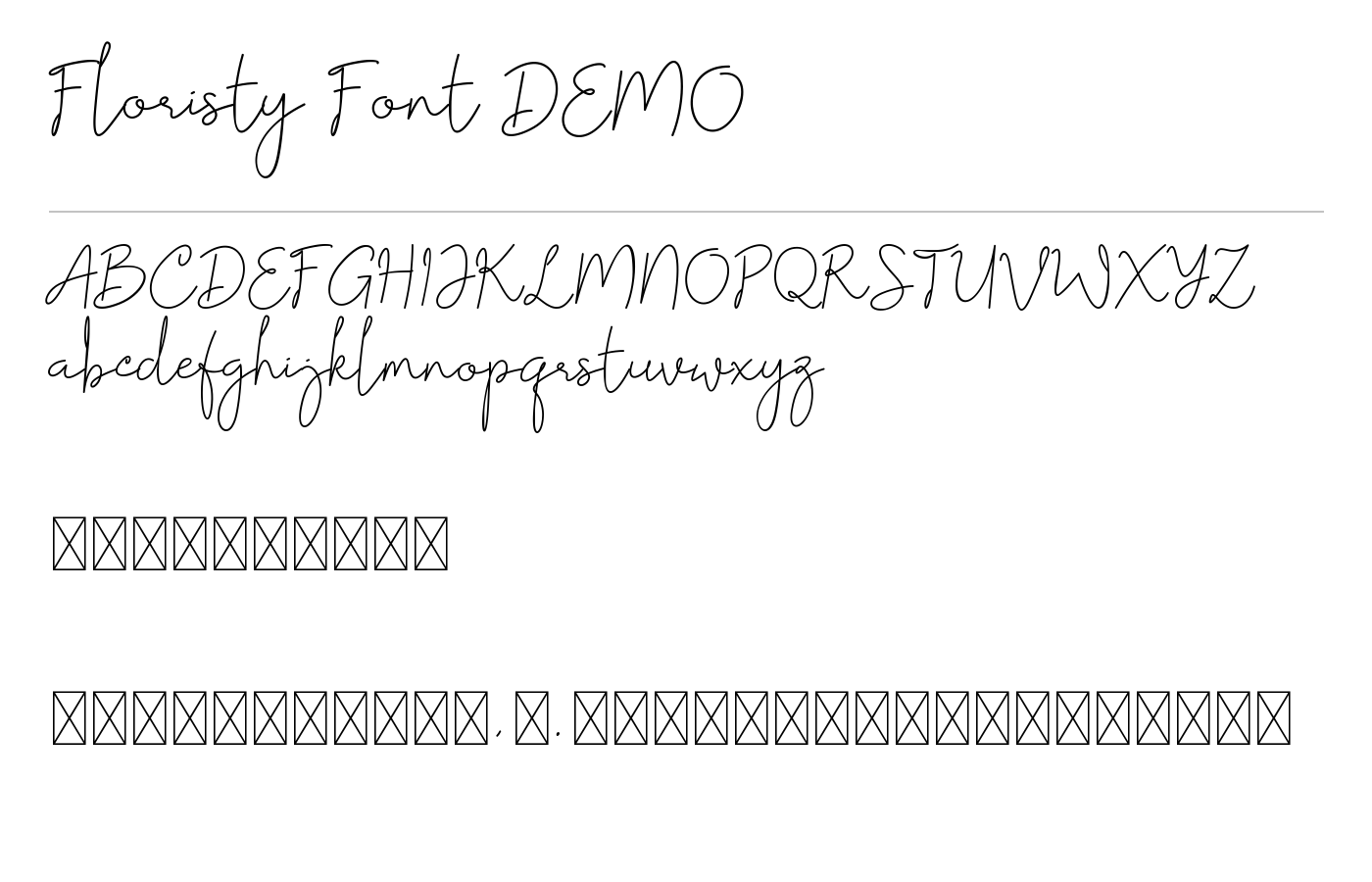
Floristy Handwritten Font is a delicate and elegant script with thin, flowing lines that mimic natural handwriting. Its tall, slender letterforms with moderate spacing create a graceful and airy feel, making it ideal for feminine and artistic designs such as invitations, branding, and lifestyle projects. This font’s charming and personal style adds a sophisticated, handcrafted touch to creative works.
Floristy Handwritten Font